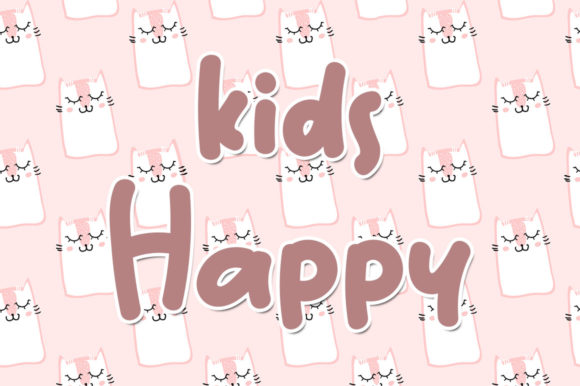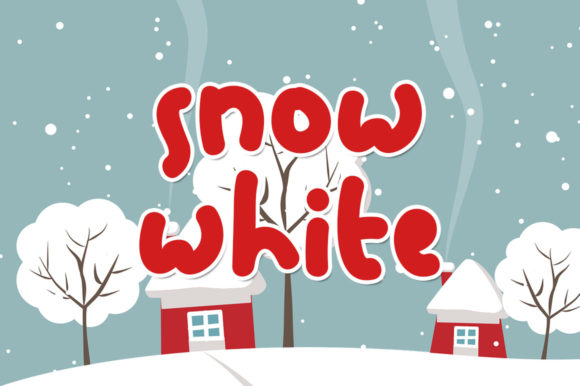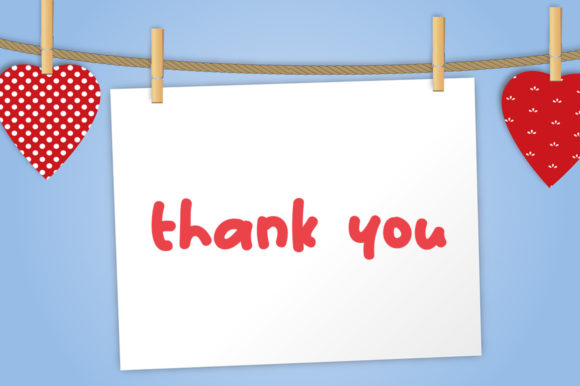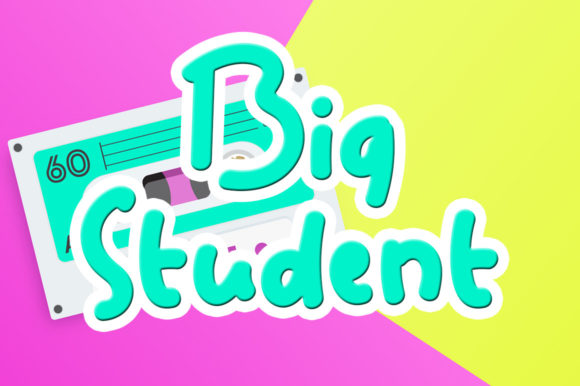
Introducing Big Student Font: A Chic and Sweet Display Font
Are you a designer or crafter looking for a font that can elevate your projects to the next level? Look no further than Big Student Font, a stylish and versatile display font that’s perfect for a wide range of applications. In this article, we’ll take a closer look at Big Student Font, its features, and how you can use it to add a touch of elegance and sophistication to your designs.
What is Big Student Font?
Big Student Font is a modern display font that’s designed to make a statement. With its clean lines, elegant curves, and sweet aesthetic, this font is perfect for designers and crafters who want to add a touch of sophistication to their projects. Whether you’re working on a formal or informal project, Big Student Font is sure to impress.
Key Features of Big Student Font
So, what makes Big Student Font so special? Here are just a few of its key features:
• Chic and Sweet Design: Big Student Font boasts a stylish and elegant design that’s perfect for a wide range of projects.
• Versatile: This font is suitable for both formal and informal projects, making it a great addition to any designer’s toolkit.
• Easy to Read: Despite its elegant design, Big Student Font is easy to read, even at smaller sizes.
• High-Quality: This font is designed to deliver high-quality results, with crisp lines and smooth curves.
How to Use Big Student Font
Big Student Font is perfect for a wide range of projects, including:
• Signage: Use Big Student Font to create eye-catching signs for events, businesses, or organizations.
• Posters: Add a touch of elegance to your posters with Big Student Font.
• Business Cards: Use Big Student Font to create stylish and professional business cards.
• Social Media Graphics: Add a touch of sophistication to your social media graphics with Big Student Font.
• Crafting Projects: Big Student Font is also perfect for crafters who want to add a personal touch to their projects, such as scrapbooking, card-making, and more.
Tips for Using Big Student Font
Here are a few tips for getting the most out of Big Student Font:
• Experiment with Sizes: Big Student Font looks great at a wide range of sizes, so don’t be afraid to experiment to find the perfect size for your project.
• Pair with Other Fonts: Big Student Font pairs well with a wide range of other fonts, so feel free to get creative with font combinations.
• Use for Headlines: Big Student Font is perfect for headlines and titles, where its elegant design can really shine.
Font Name Big Student Font
Author Eddygoodboy
Big Student Font – Frequently Asked Questions
• Q: What type of font is Big Student Font? A: Big Student Font is a display font, perfect for headlines, titles, and other display text.